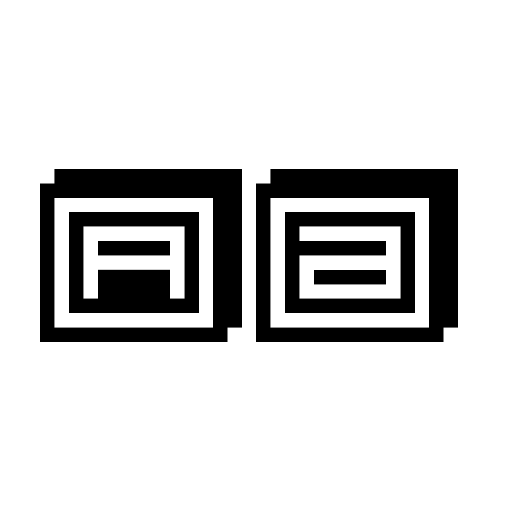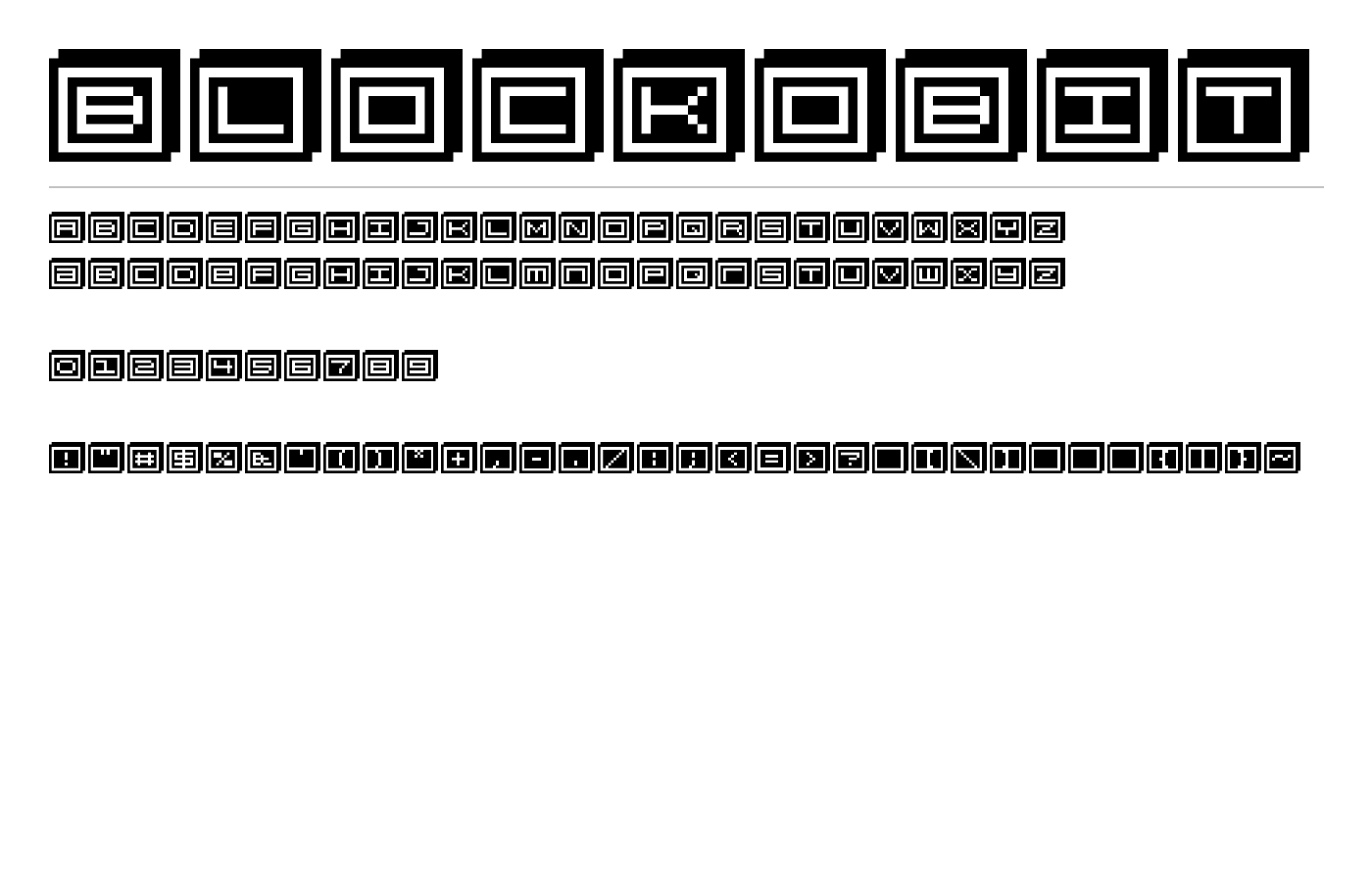
BlockoBit is a distinctive pixel-inspired sans serif font characterized by bold, blocky letterforms enclosed within square outlines, creating a strong geometric and digital aesthetic. Its uniform weight and monospaced feel, paired with high contrast between filled and empty space, make it perfect for technology-themed designs, retro video game projects, and eye-catching headlines or logos where a modern, techy vibe is desired. This font's unique style stands out best in display use rather than body text, lending a pixel-art charm with a contemporary edge.
BlockoBit Font
About BlockoBit Font